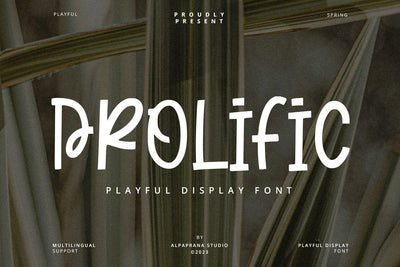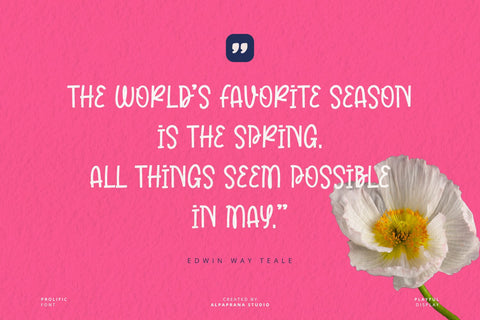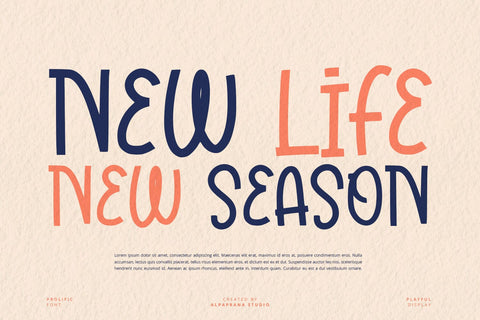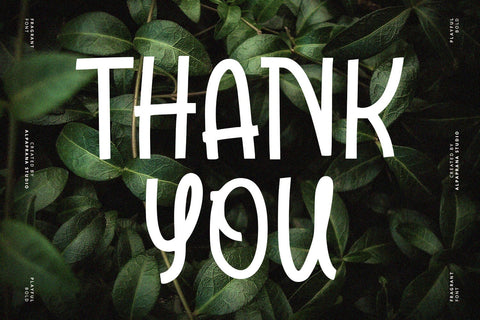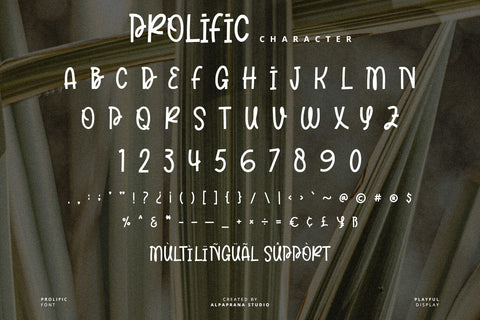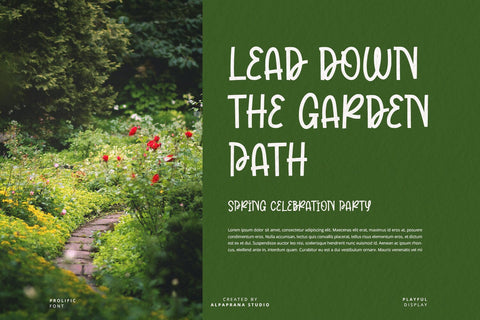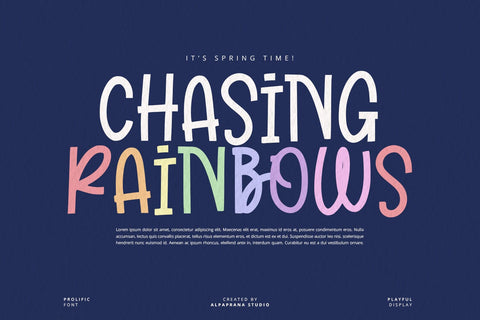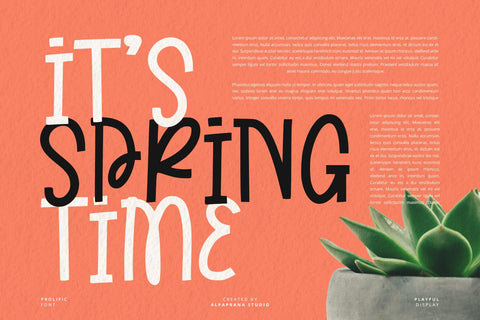
Prolific - Playful Font
Prolific is a display font with authentic and playful feels. It will be perfectly used for Branding, Logo Design, Lettering, Logotype, Clothing, Poster, magazine, packaging, posters, shopping bags, t-shirts, book covers, photography, special events and other design project.